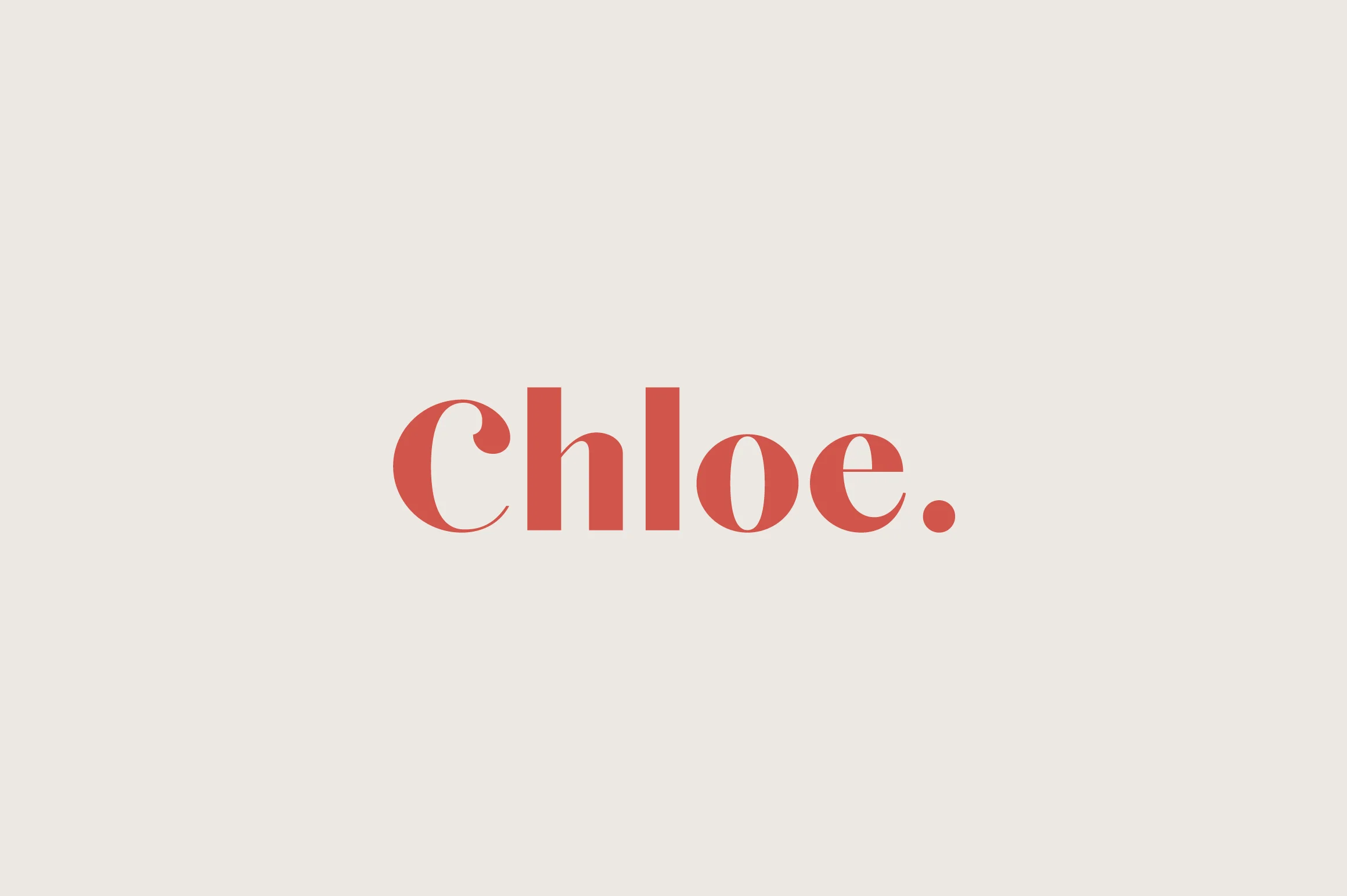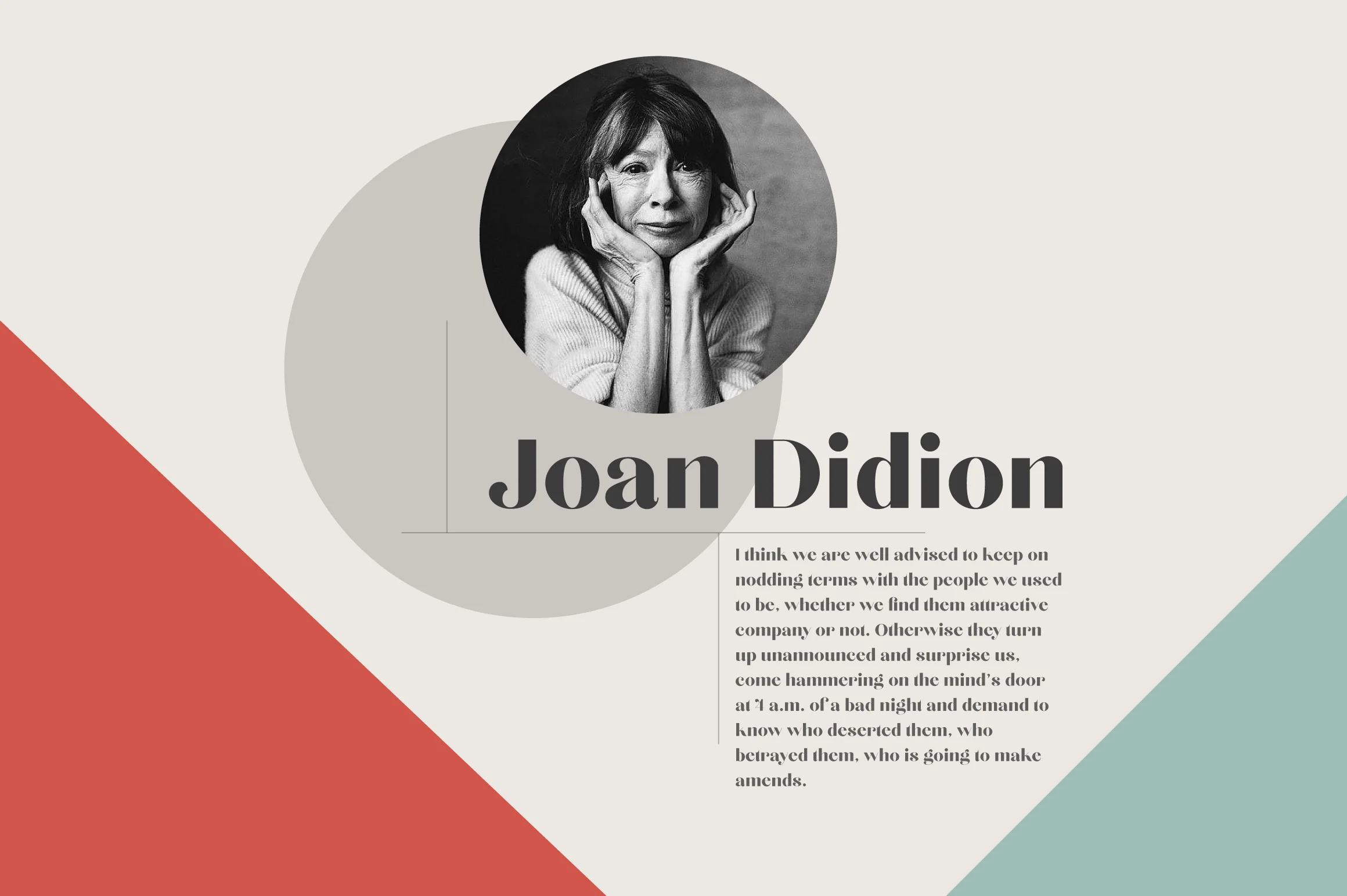
Chloe - A Classic Typeface
Create bold, gorgeous headlines and elegant designs with a vintage flair. Chloe's contrasting lines and curved terminals give a sleek, elegant look to logos, holiday cards, wedding invitations, quotes, advertisements, and more. Chloe is a versatile typeface that's full of character and one you'll come back to time and again. Create something beautiful today with Chloe.
- Uppercase Characters
- Lowercase Characters
- Discretionary Ligatures
- Multilingual support for various languages including: French, German, Spanish, Portuguese, Italian, Dutch, Finnish, Swedish, and more.